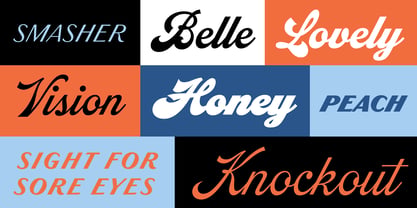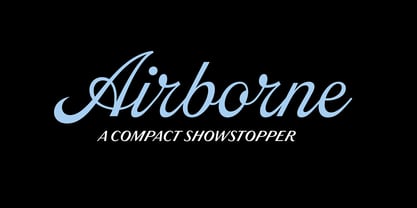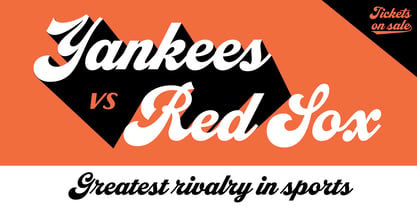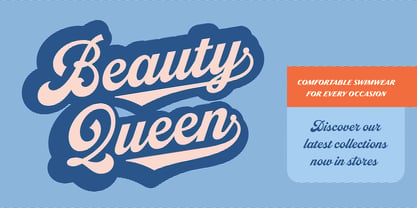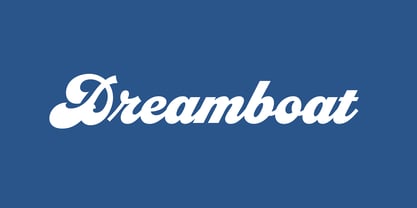
Dreamboat
by Mark Simonson Studio
The Dreamboat Font Family was designed by Mark Simonson and published by Mark Simonson Studio. Dreamboat contains 6 styles. More about this family
A typeface nearly 20 years in the making, Dreamboat is Mark Simonson’s take on the bold script style popular during the first few decades of the 20th century and revived later in custom lettering and logos starting in the 1960s, sometimes evolving into psychedelic or pop-art forms. Numerous familiar trademarks and brands still sport this style of lettering like Ford, Coca-Cola, Schlitz and any number of baseball club logos. The original single style would become the Bold weight and the full family expanded into six weights, ranging from Light to Black. There are numerous features like small caps, tails, and an alternate lowercase t with a high crossbar. Dreamboat is ready to knock your branding out of the park.
Designers: Mark Simonson
Foundry: Mark Simonson Studio